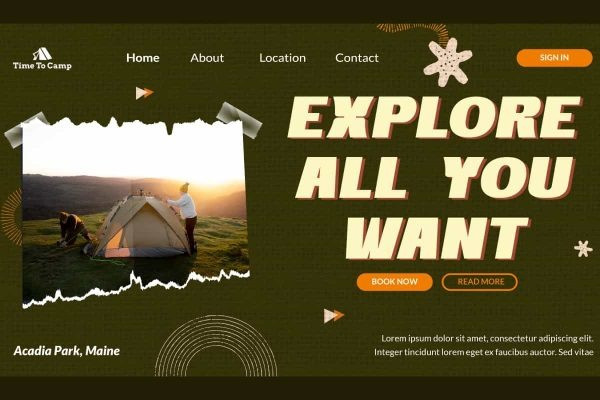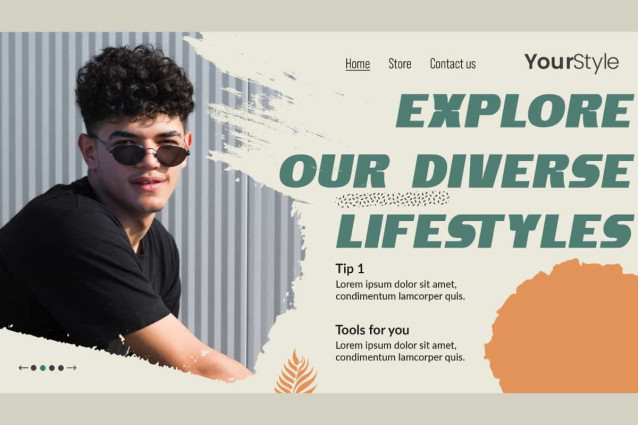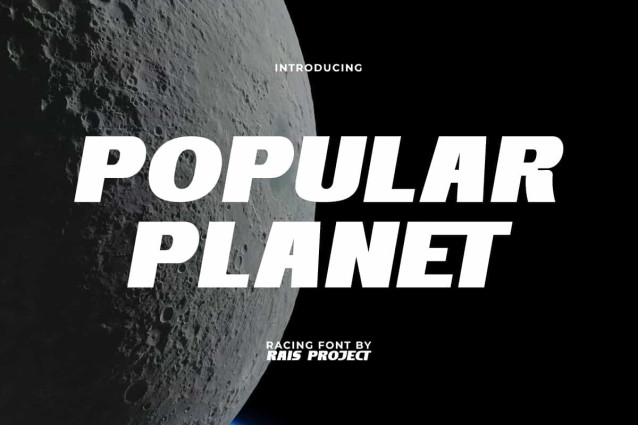
Popular Planet Font
Popular Planet Font is a modern chic racing display font, created by RaisProject. This font can perfectly realize the appearance of a racing theme and can be paired with other types of fonts. It will be good for any designs, such as stationery, custom design, signage, brand image, advertisement, invitation, label, marketing material, poster, product packaging, quotes, website page, and more!
Popular Planet Font includes a full set of ALL CAPS for Uppercase and Lowercase Letters, Numerals, and large range of Punctuation. This modern font will be suitable for various industries, such as automotive, sports, fashion, game, barber shop, cafe, event or festival, photography, printing, publishing, etc.